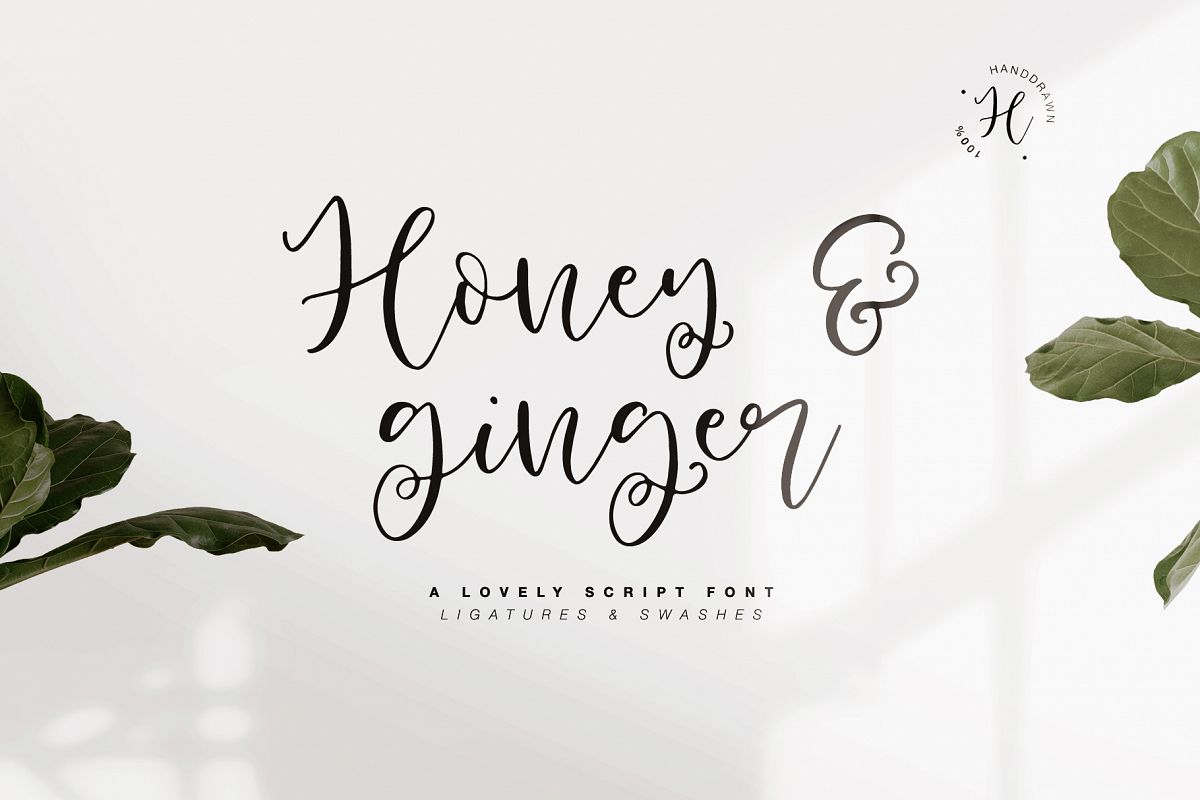
Honey & Ginger handwritten font
Hello dears! This font is a classic Modern Calligraphy. Here is that: floating baseline, ligatures, swashes and multilingual support :)
Honey & Ginger Script will look beautiful on holiday invitations, wedding invites and stationery, logos, and more.Test it out below to see how it could look for your next project!
• Support ALL European Languages